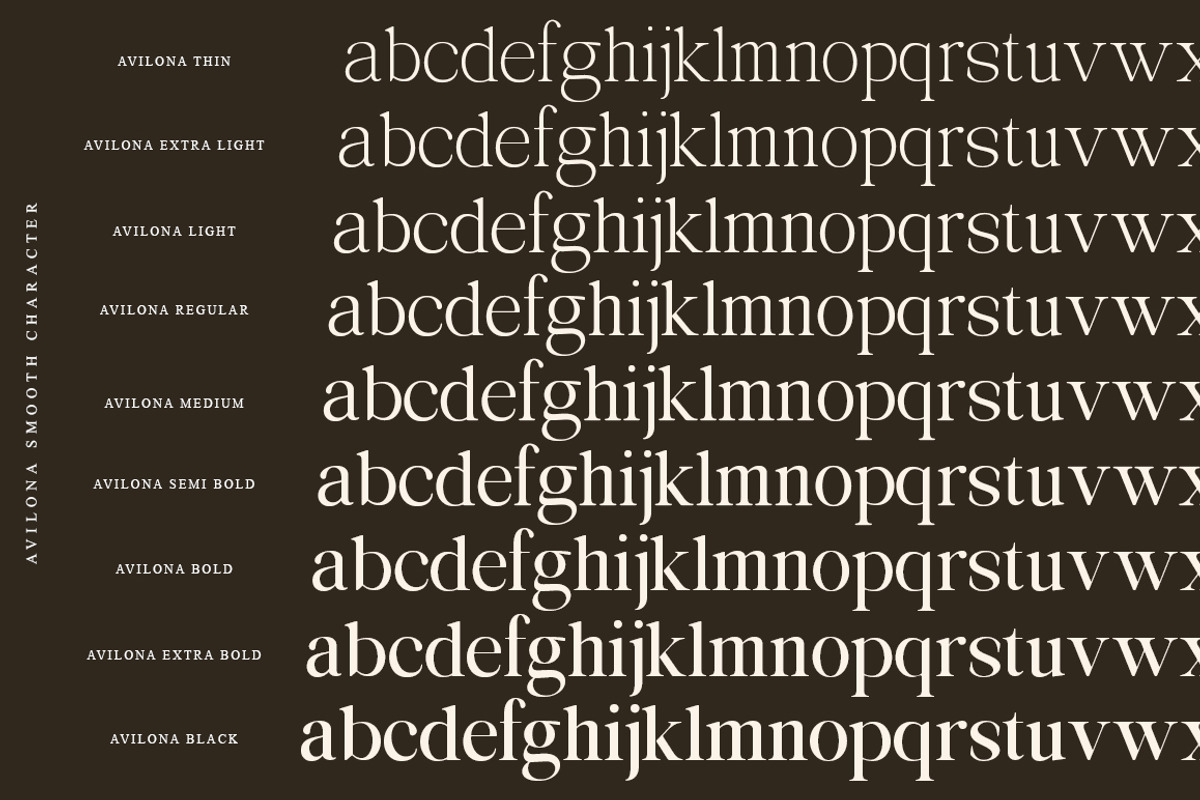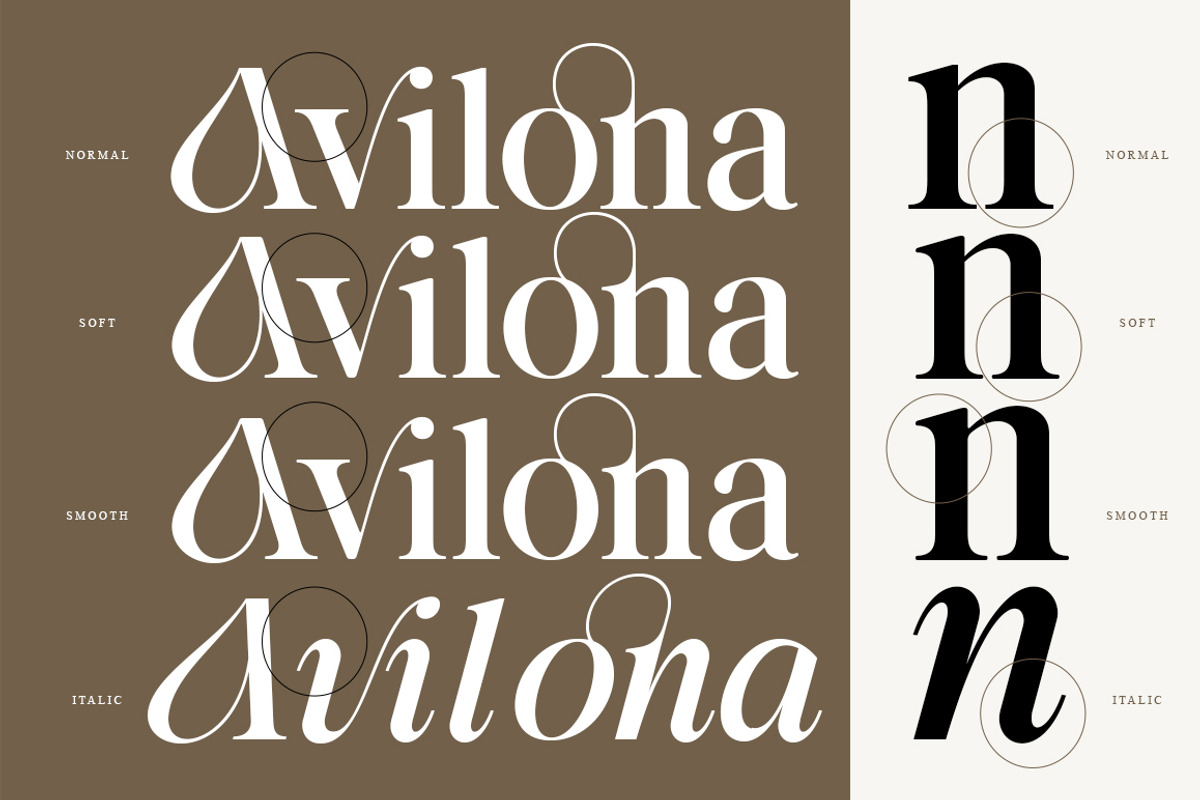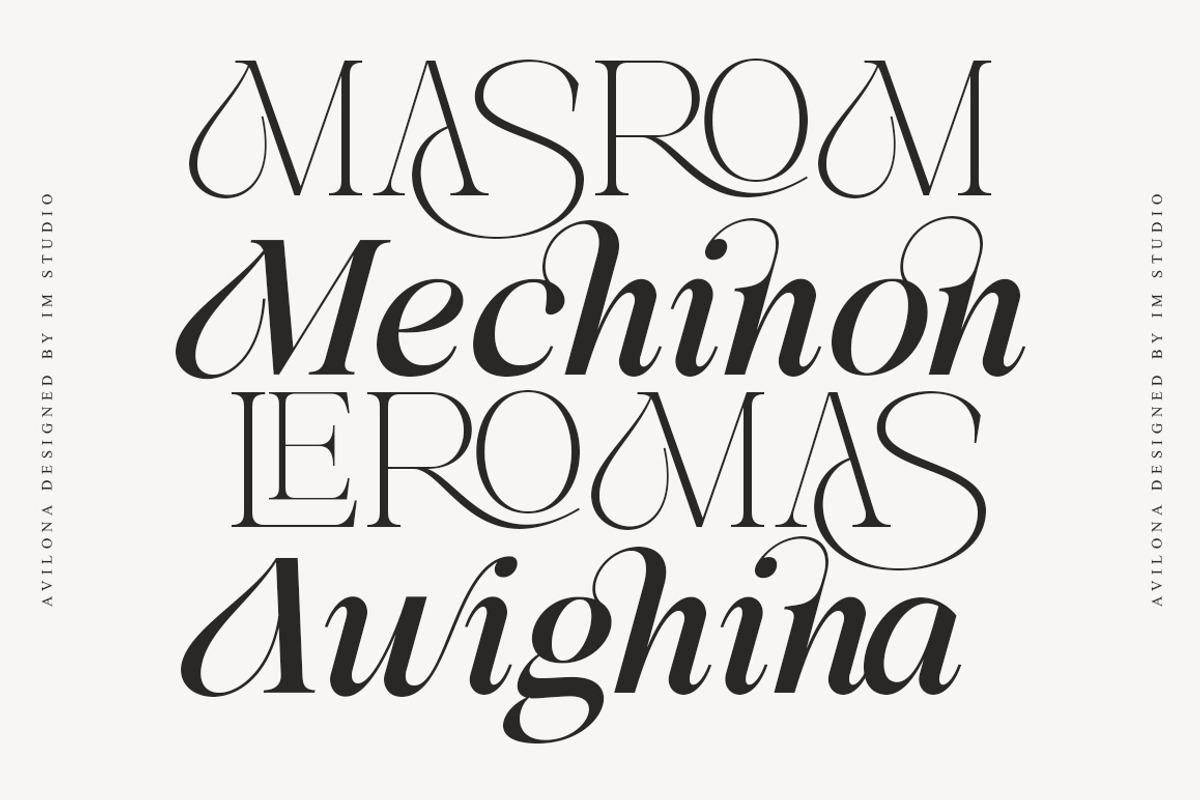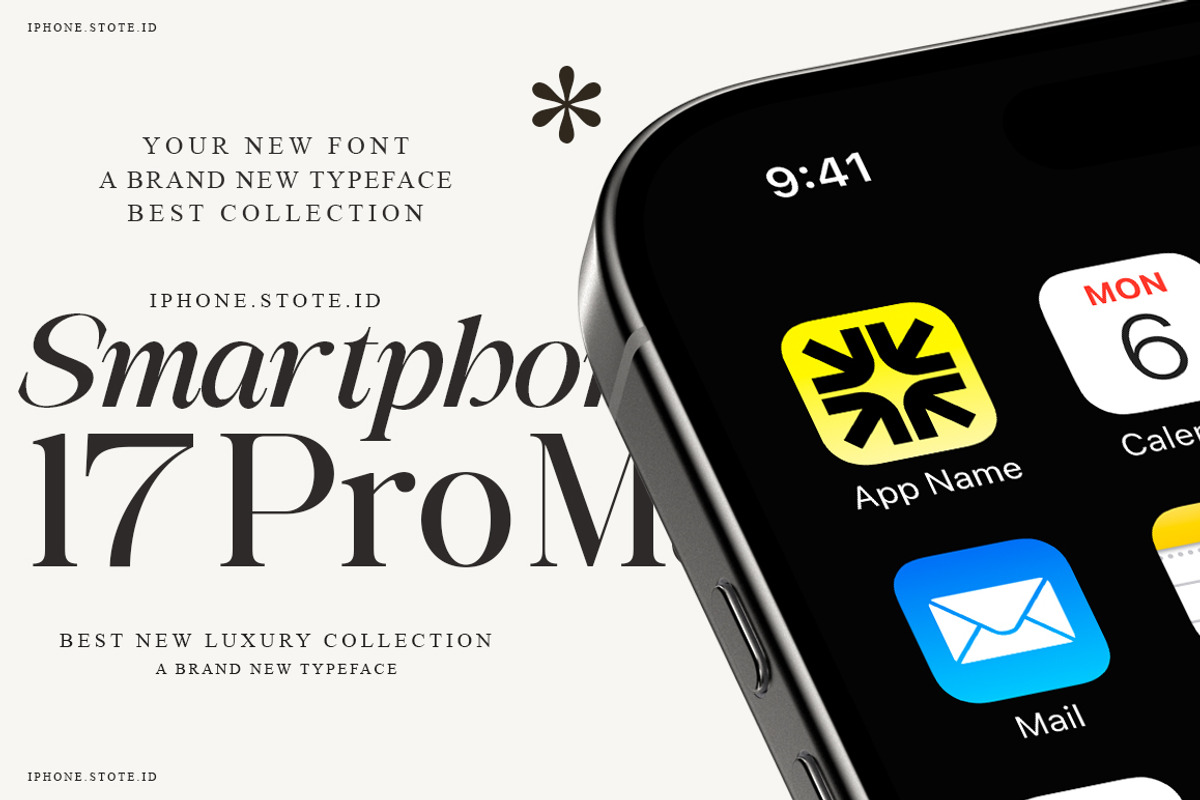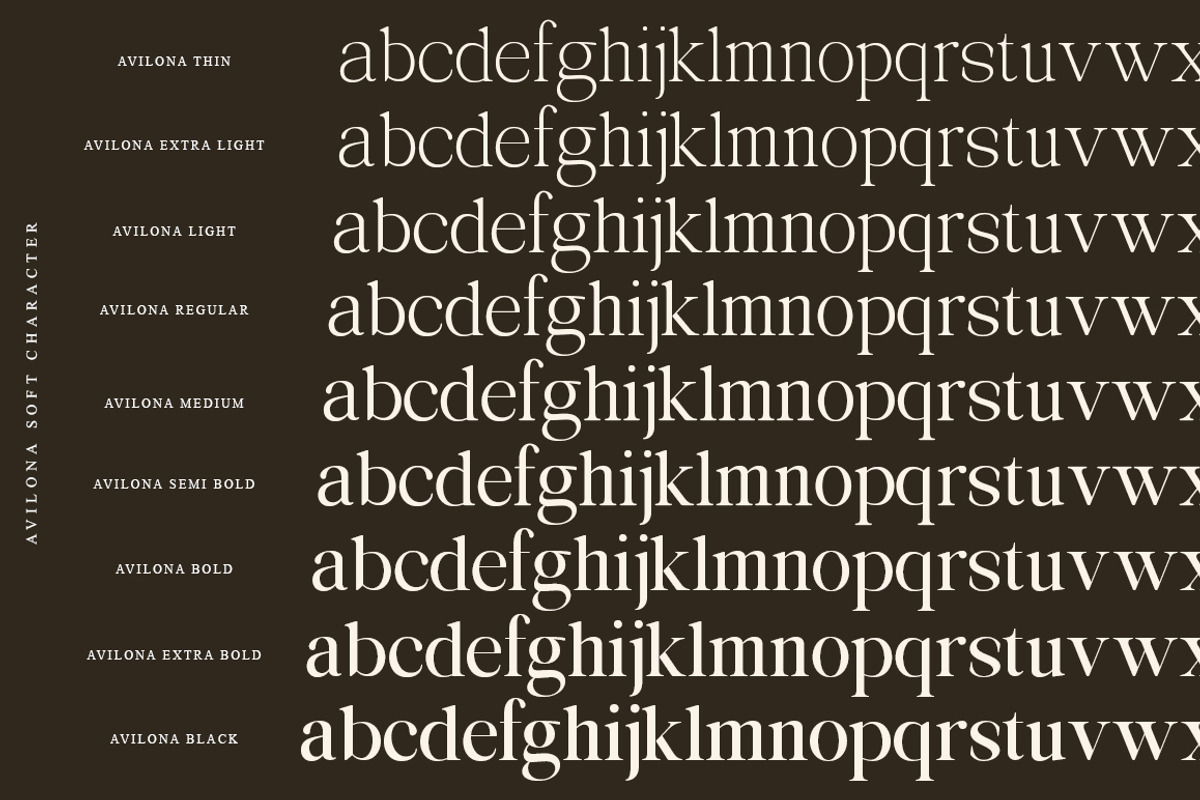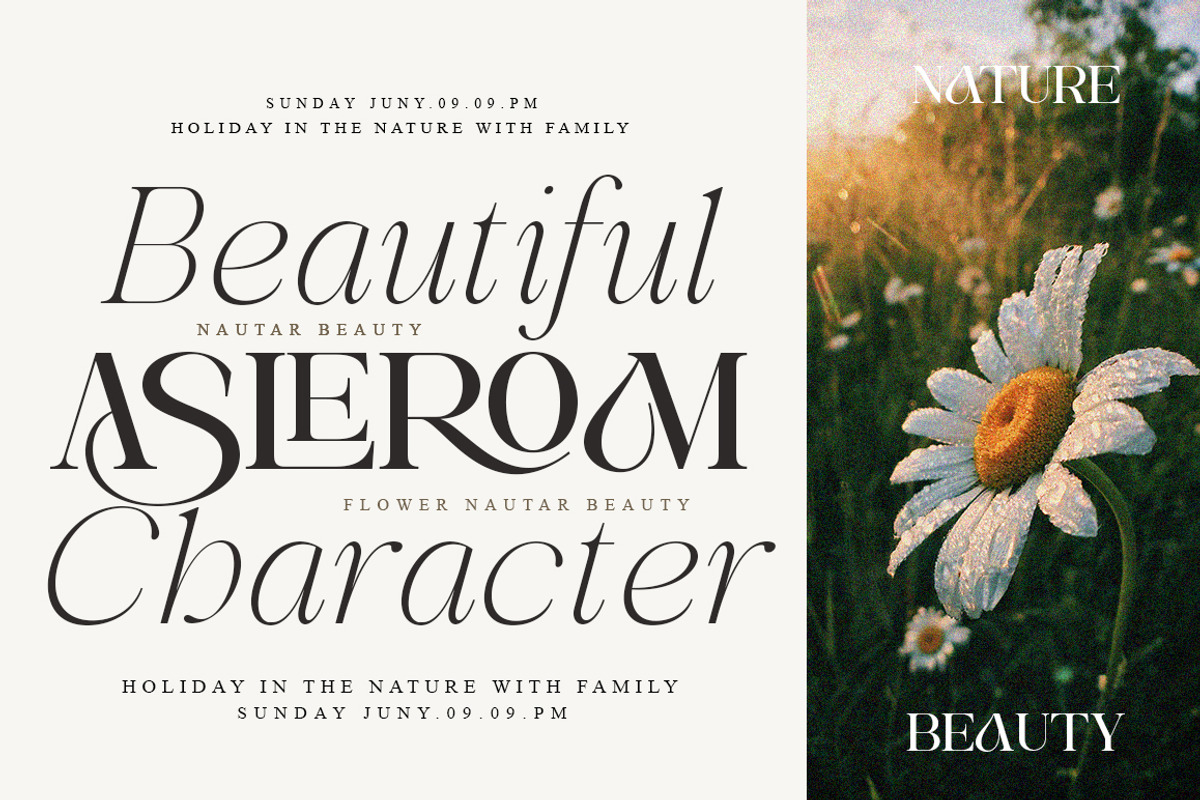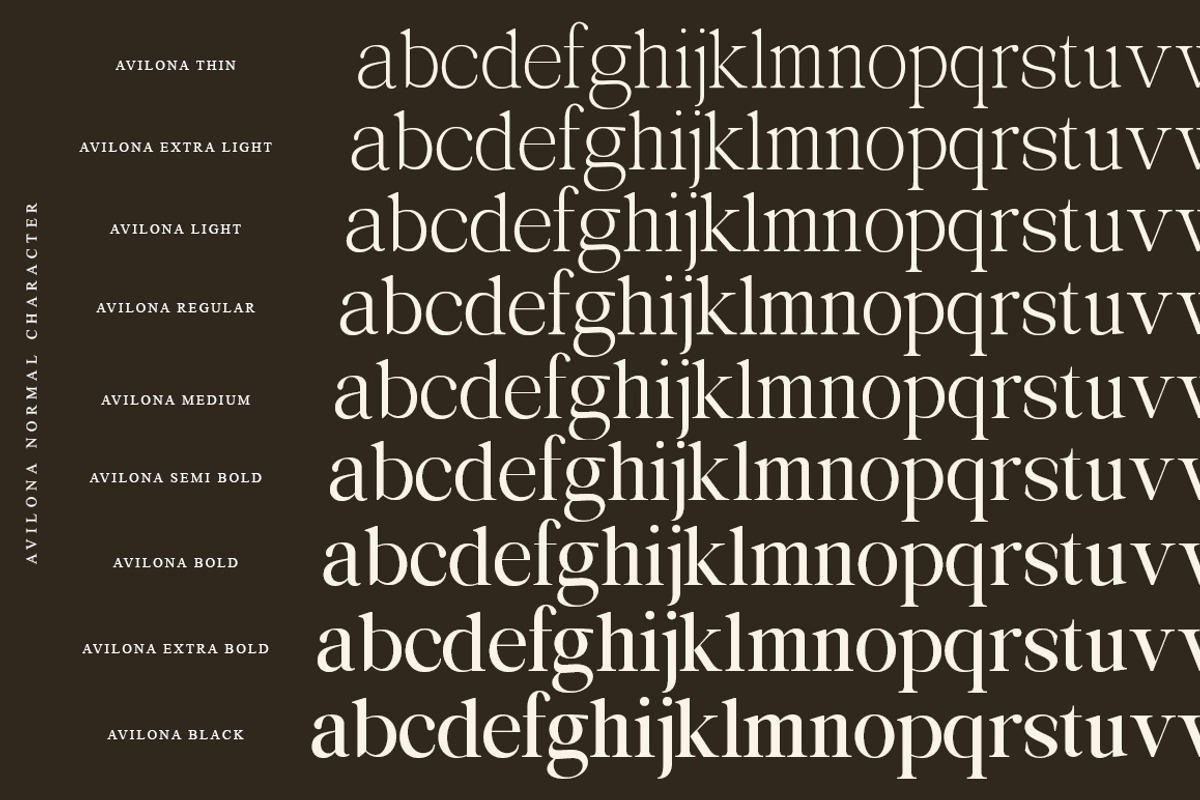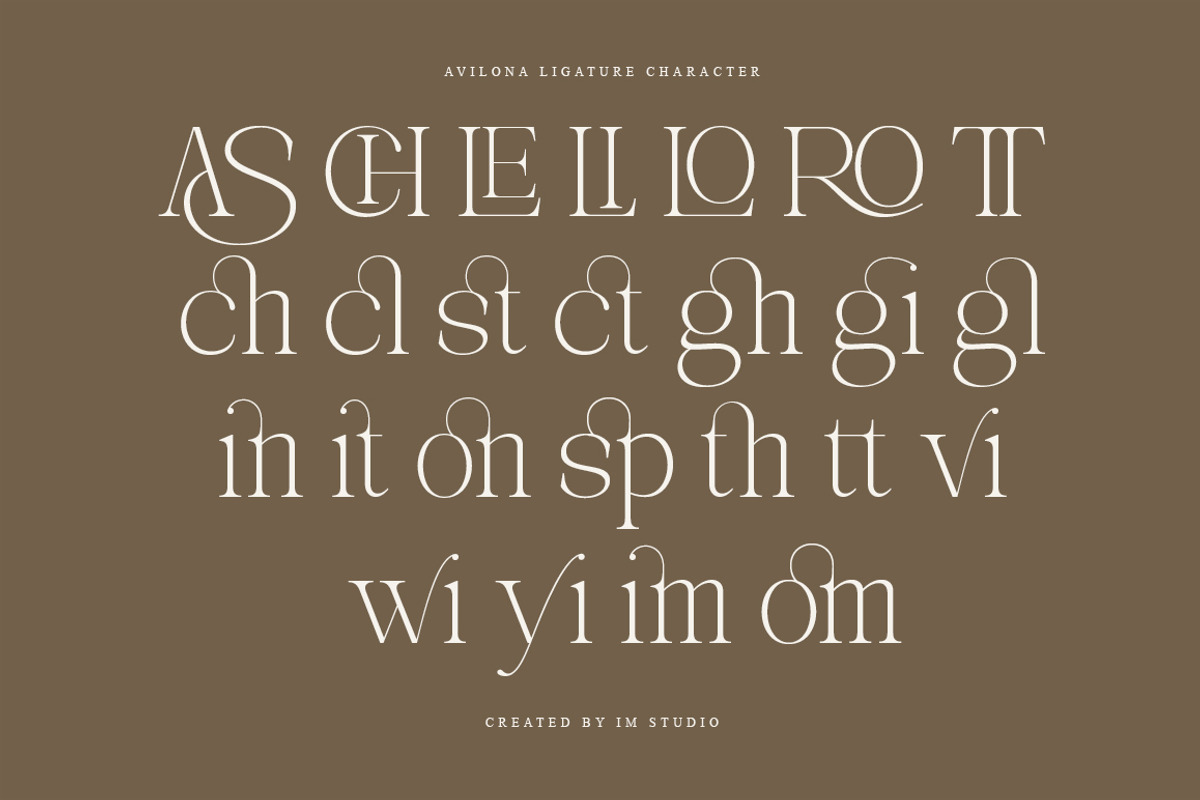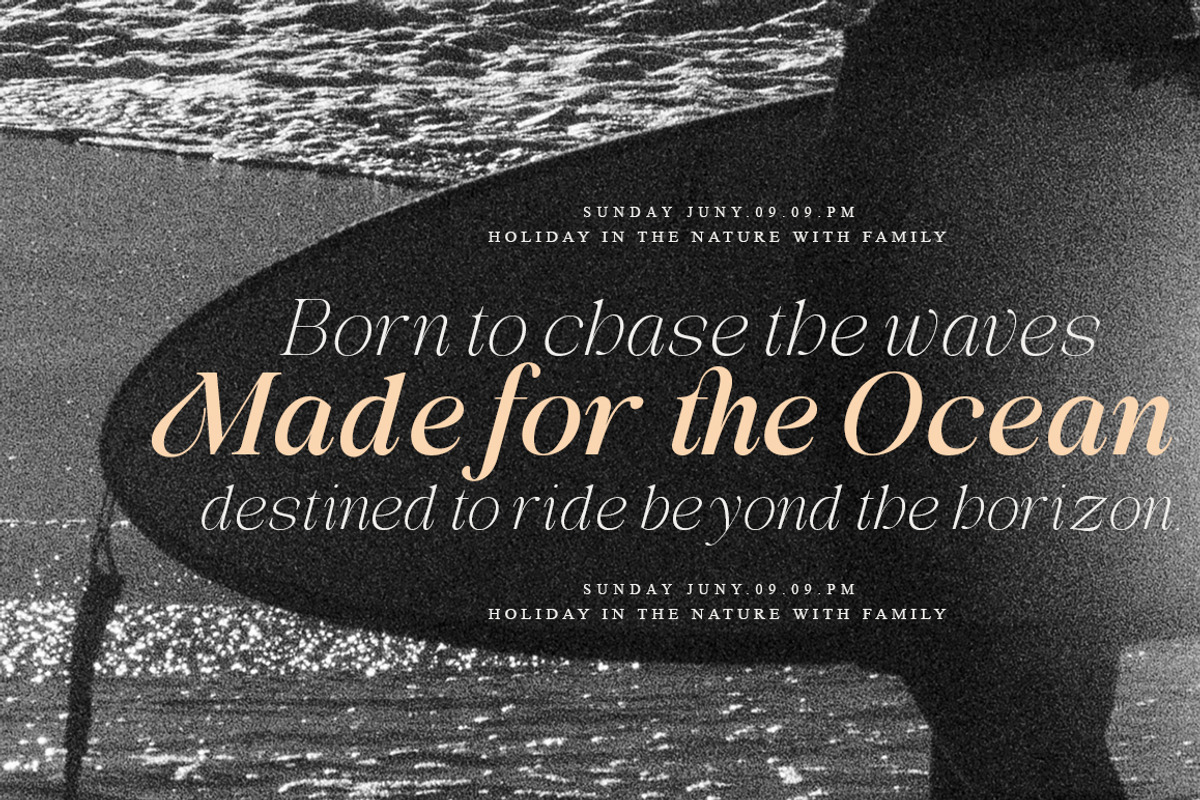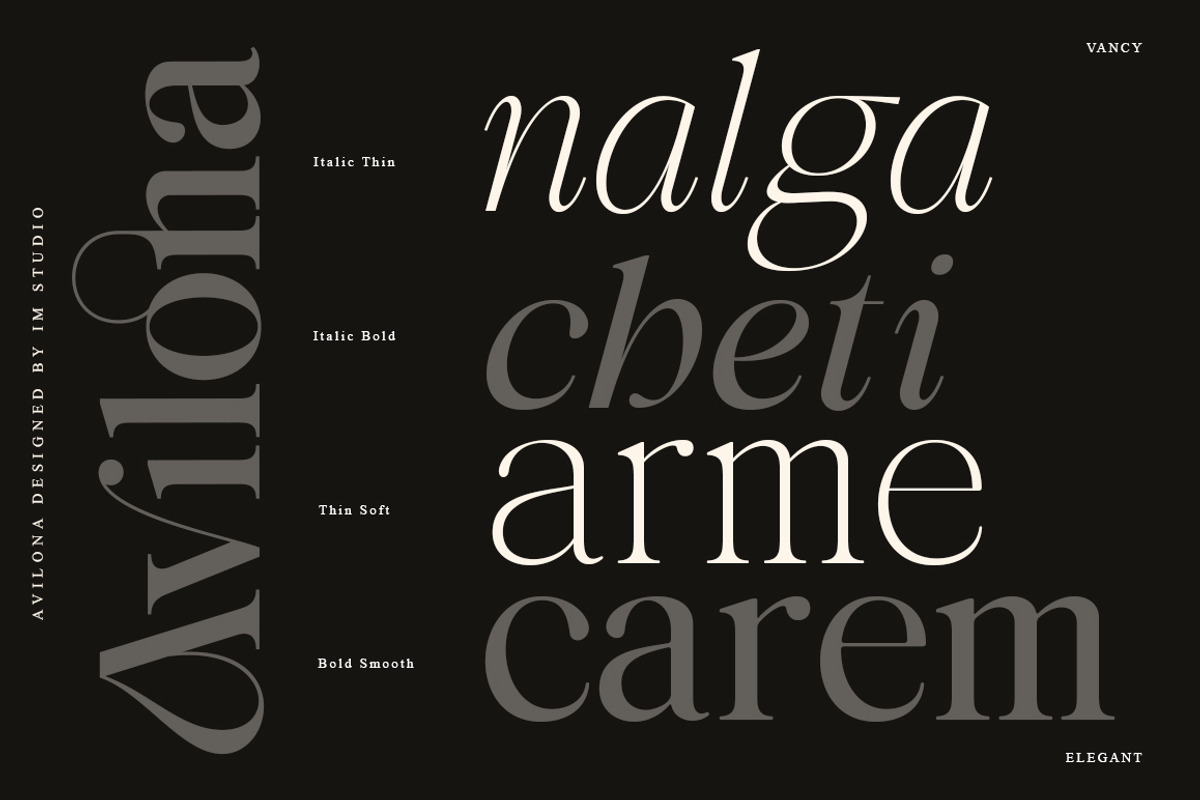
Avilona Super Family | 63 Style Font
Avilona Editorial – Elegant Editorial Serif Typeface
Avilona Editorial is a sophisticated serif typeface designed to bring elegance, versatility, and a refined editorial character to modern typography. Featuring high-contrast forms, graceful curves, and beautifully balanced proportions, Avilona Editorial creates a distinctive visual rhythm with a timeless yet contemporary feel.
Designed for fashion, luxury, branding, and editorial design, Avilona Editorial offers a versatile collection of styles that can easily adapt from delicate and sophisticated layouts to bold and expressive compositions.
Multiple Styles, Endless Possibilities
Avilona Editorial comes with five distinctive styles: Normal, Soft, Smooth, Slant, and Italic.
Normal features refined serif details, elegant proportions, and strong contrast for a classic editorial appearance.
Soft introduces smoother curves and softer terminals, creating a delicate, graceful, and sophisticated personality.
Smooth offers a more fluid and polished character, perfect for contemporary branding and elegant display typography.
Slant adds a dynamic angled appearance while maintaining the refined structure of the typeface.
Italic brings expressive movement and graceful rhythm, making it ideal for fashion headlines, invitations, quotes, and sophisticated editorial compositions.
A Complete Editorial Font Family
To provide maximum flexibility, Avilona Editorial includes 9 weights, ranging from Thin to Black, across its extensive style system. The complete collection contains 63 font styles, giving designers a powerful typographic toolkit for both subtle and high-impact designs.
From ultra-light editorial text to bold display headlines, Avilona Editorial allows you to create consistent and sophisticated typography across a wide range of projects.
Avilona Editorial is ideal for:
Fashion & beauty branding
Luxury logos & visual identities
Editorial magazines
High-end advertising
Posters & headlines
Invitations & wedding stationery
Luxury packaging
Product branding
Website & digital design
Editorial layouts
Creative campaigns
With its combination of elegant contrast, expressive curves, and multiple styles, Avilona Editorial gives your typography the flexibility to move effortlessly between classic sophistication and modern editorial expression.
Elevate your typography with Avilona Editorial—a refined serif family created for fashion, luxury, branding, and modern editorial design.